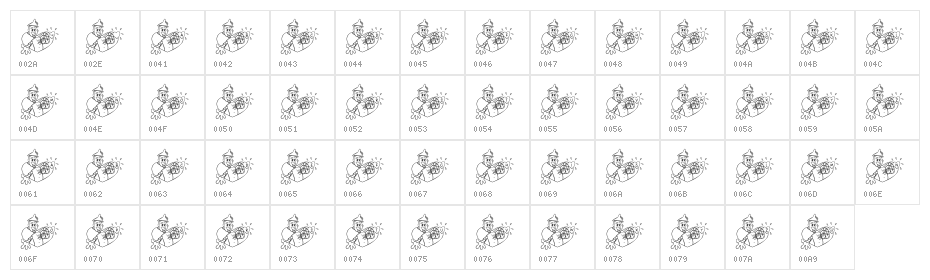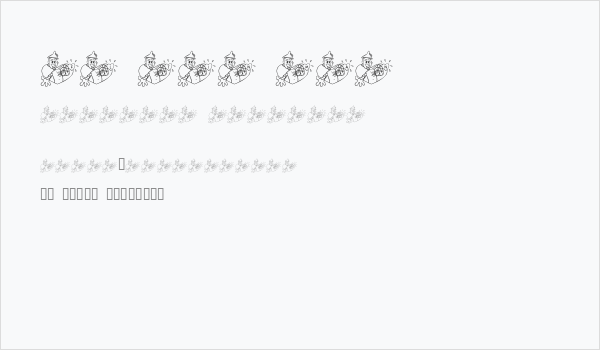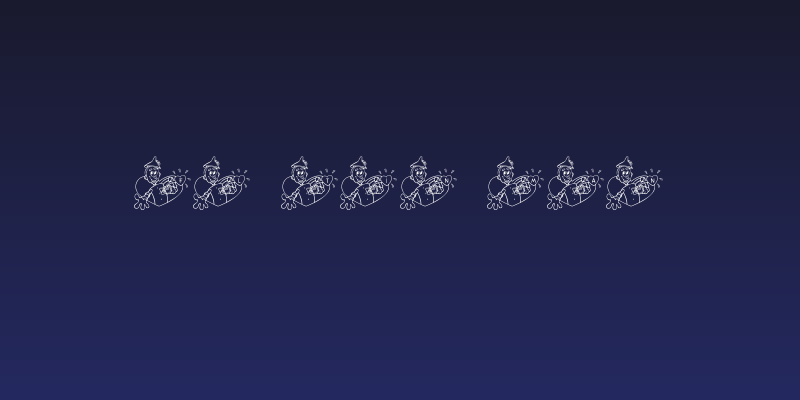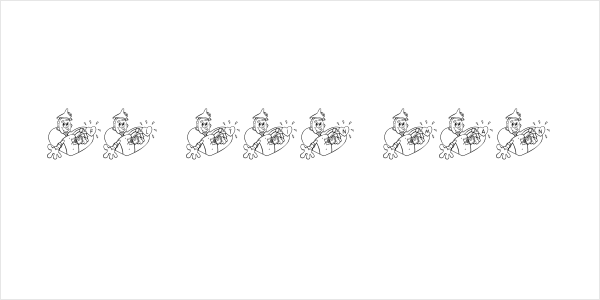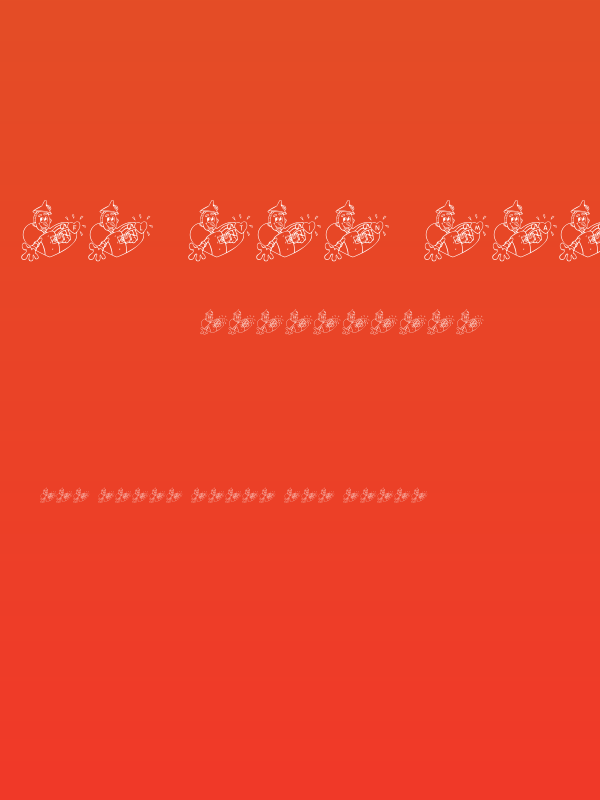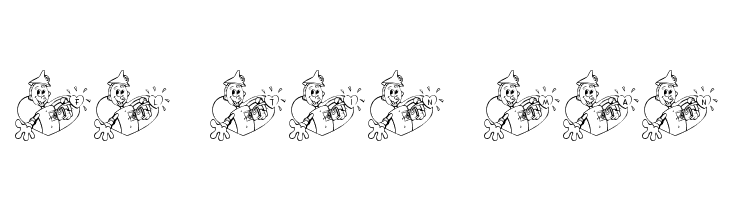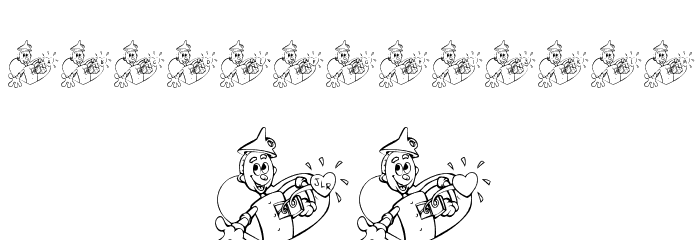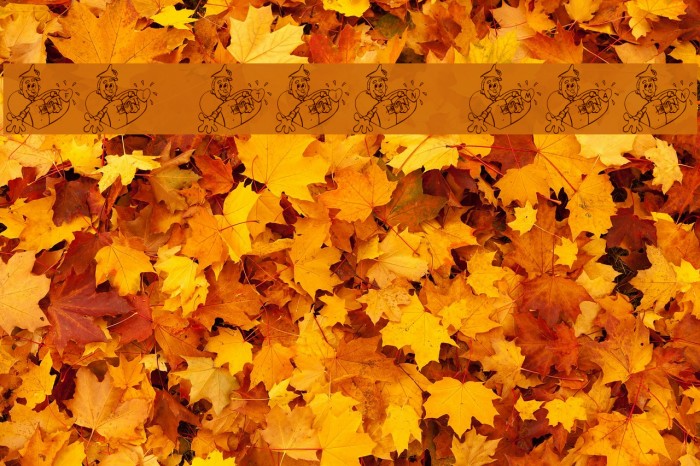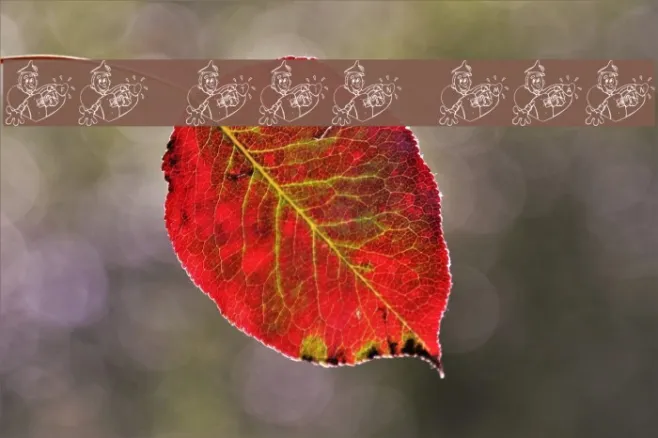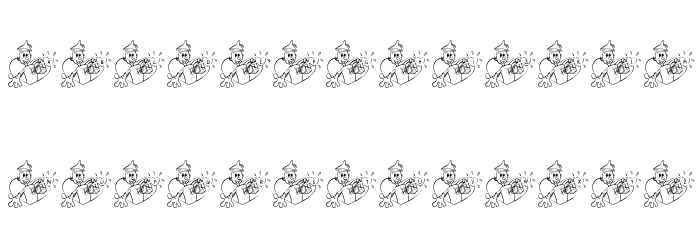
FL Tin Man Font
FL Tin Man Description
A decorative, illustrative font where each character is represented by a detailed line drawing of a cartoonish tin man holding a heart, evoking a whimsical and storybook feel.
| Overall Style | Decorative, Whimsical, Playful |
| Use Case | Logos, Headlines, Posters, Themed Graphics |
| Proposed Projects | Children's books, themed party invitations, storybook titles, playful branding, novelty posters. |